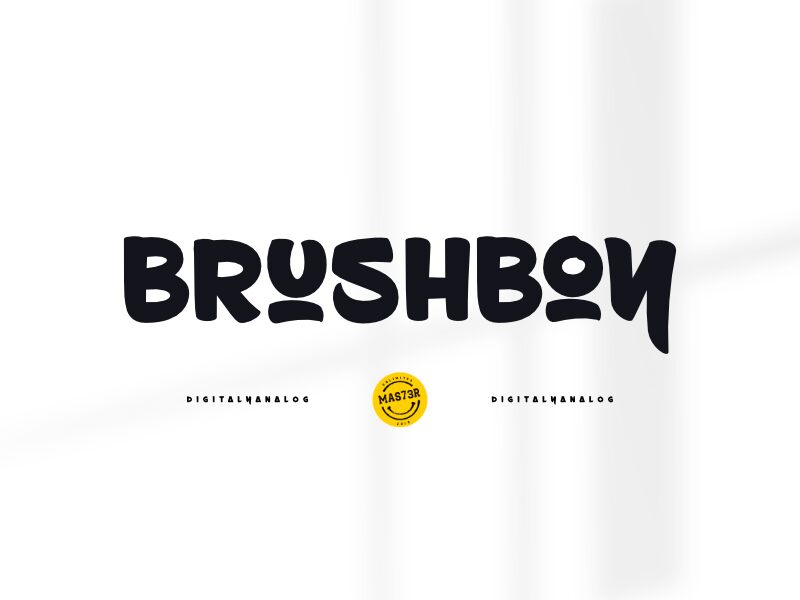
Brushboy, designed by Petar Acanski, is a bold and semi-expanded font that exudes a smooth brush style. Its artistic flair makes it perfect for creative projects like logo designs, branding materials, and packaging. Brushboy's bold weight ensures that your text stands out with confidence and impact. Whether you're working on a contemporary art exhibition or designing an edgy magazine spread, this versatile font will add an expressive touch to your work. With its smooth brush strokes and unique charm, Brushboy is the ideal choice for any project that demands creativity and personality.